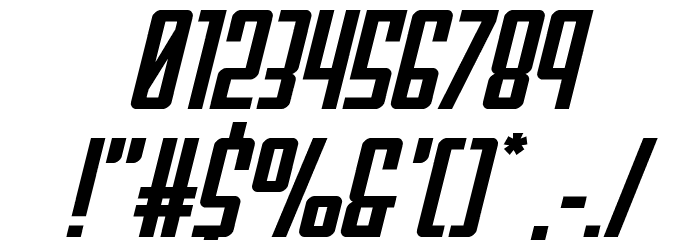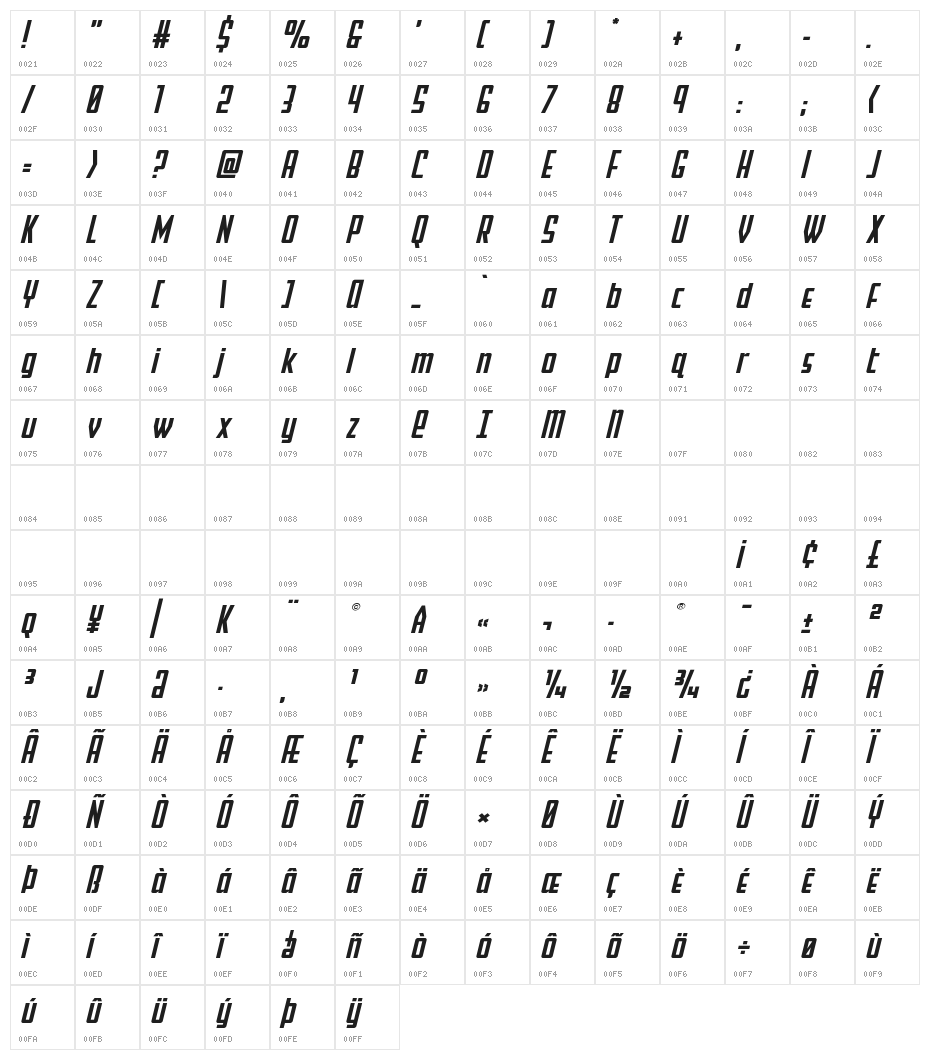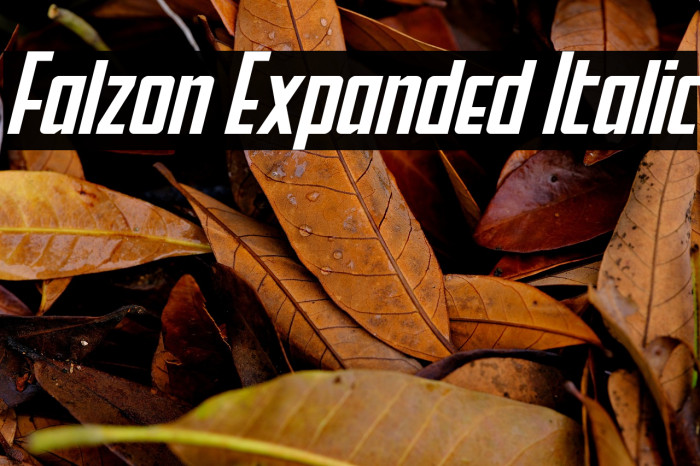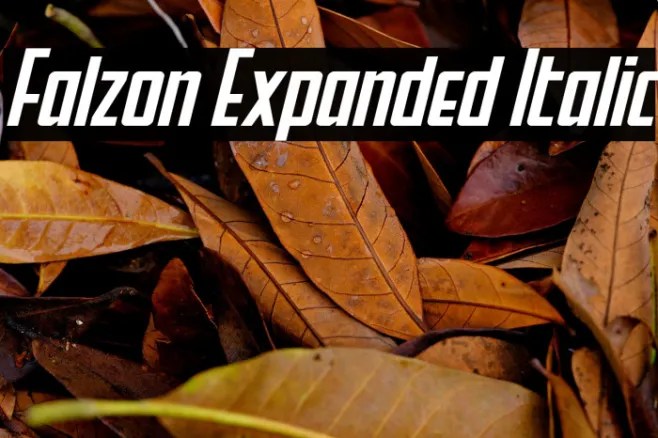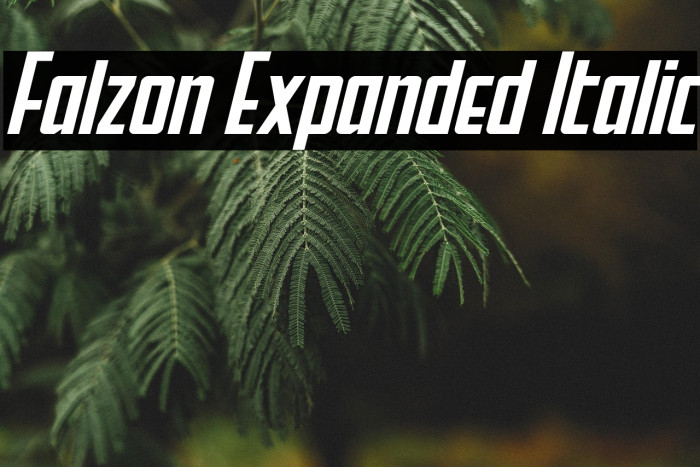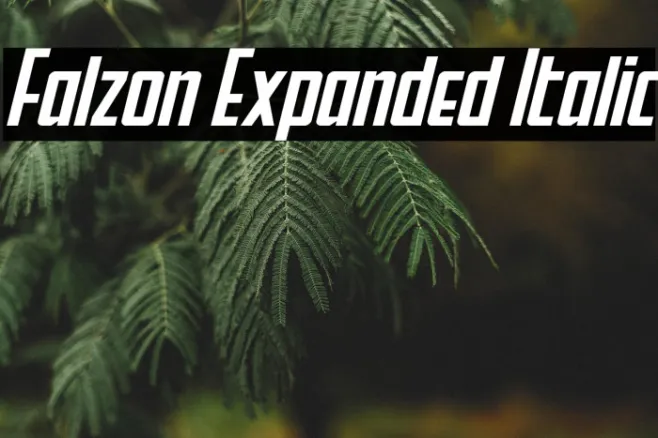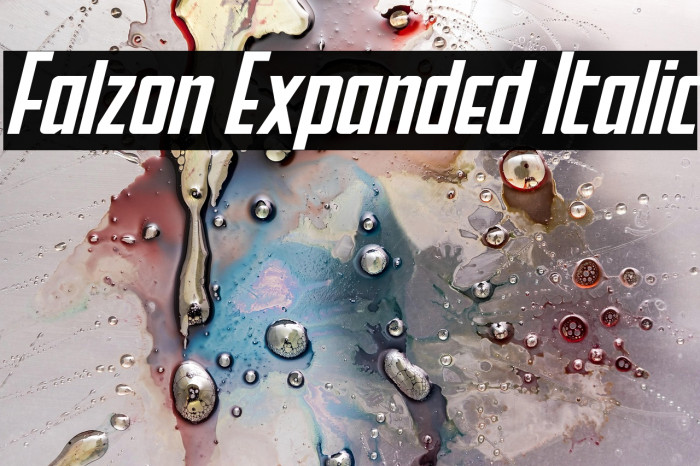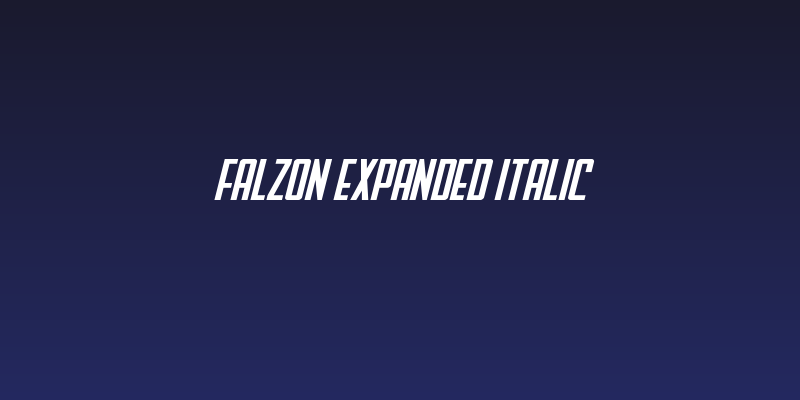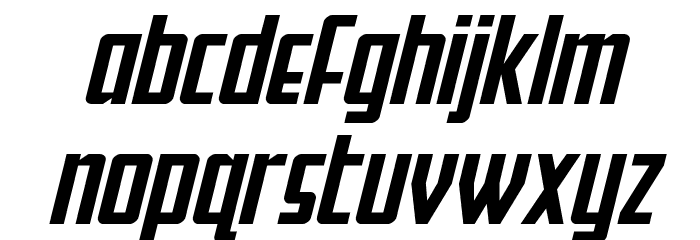
Falzon Expanded Italic Font
Falzon Expanded Italic Description
This font features a bold and dynamic style with an italic slant, giving it a sense of motion and energy. The characters are expanded, providing a wide stance that enhances readability while maintaining a strong visual impact. The uppercase and lowercase letters are designed with sharp angles and clean lines, contributing to a modern and sleek appearance. The numerals and special characters are consistent with the overall style, ensuring uniformity across all text elements. This font is ideal for projects that require a bold statement and a contemporary look.
| Proposed Projects | Ideal for sports branding, dynamic posters, modern advertising, and eye-catching headlines. |